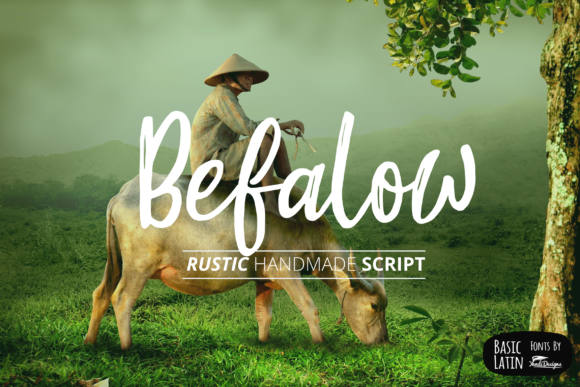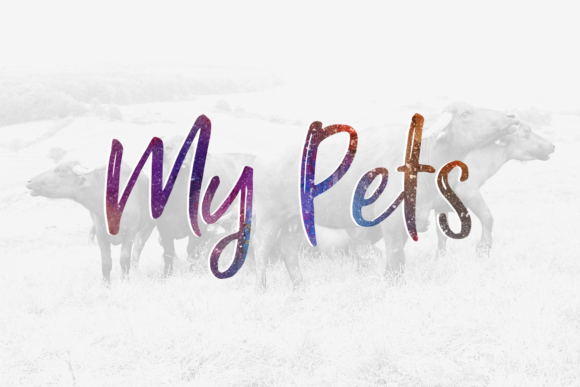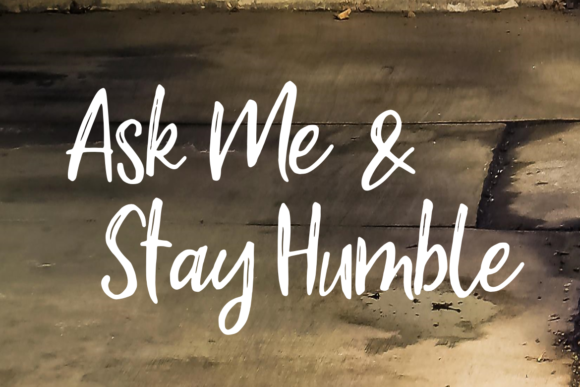
Befalow Font
About Befalow Font
Befalow Font is a simple brush font, suitable for many projects such as logos, book covers, product presentations and much more.
Give your next design a spark of creativity with this lovely font.